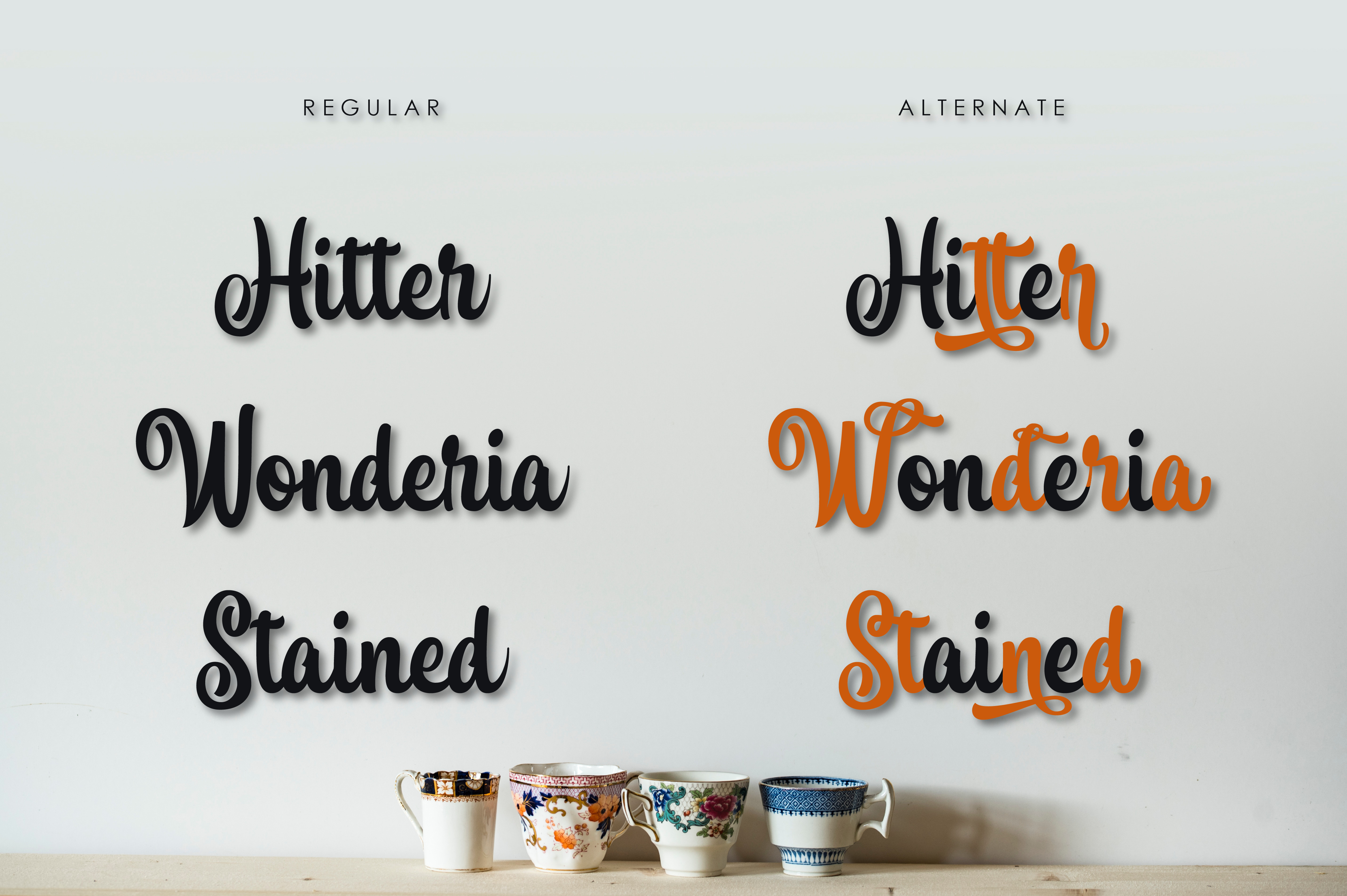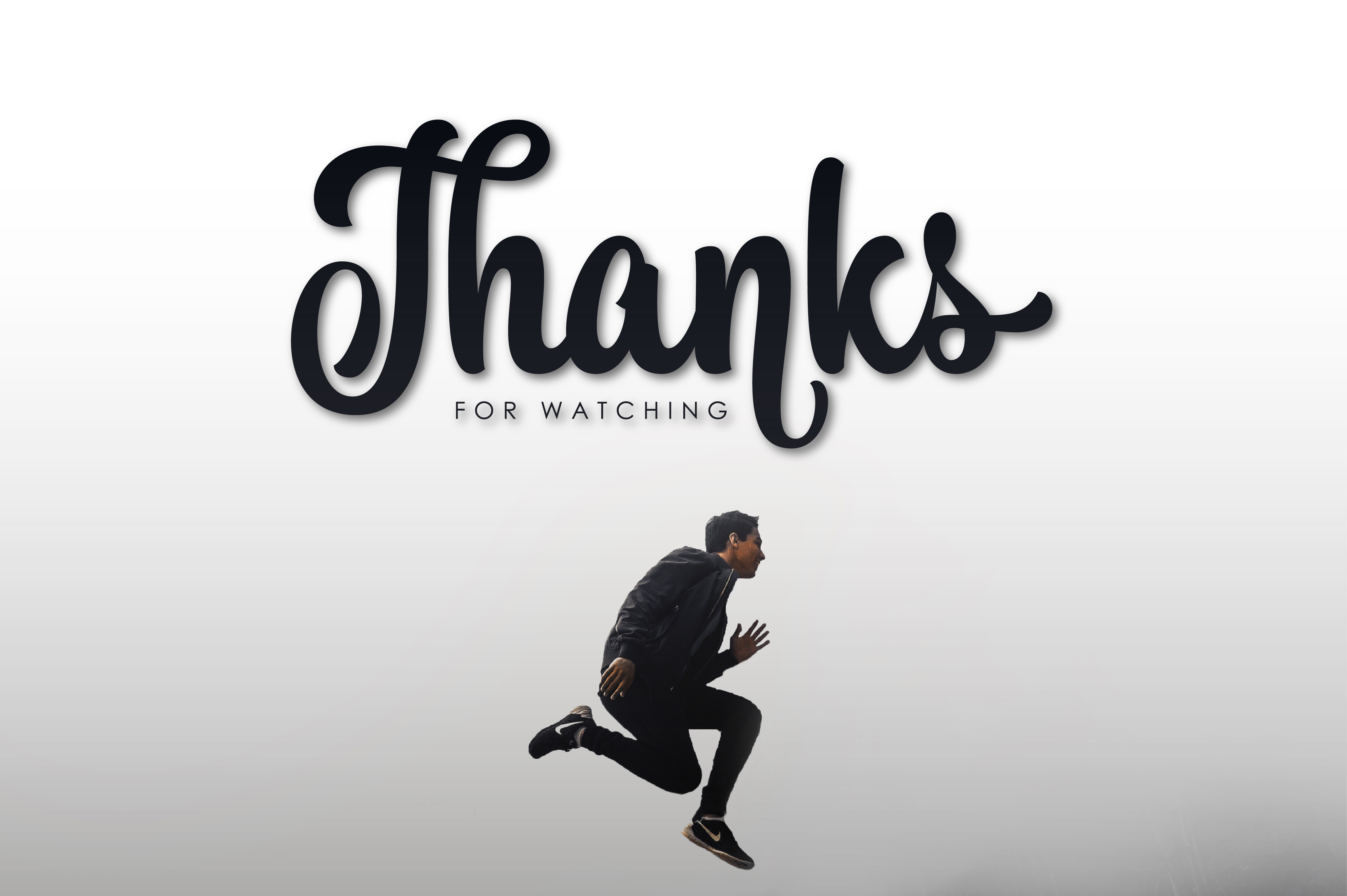
The Designer’s Dream: Arucard Script Font
I’ll never forget the time I was working on a project for a high-end fashion brand, and I just couldn’t seem to find the right font to match their sleek, sophisticated vibe. I scoured the internet, tried out countless fonts, but nothing seemed quite right. That was until I stumbled upon Arucard Script Font. ✨ It was like a breath of fresh air – elegant, modern, and full of personality. In this article, I’ll share my love for Arucard, its features, and how to make the most of it in your designs.
- ✨ Elegant and Modern: Arucard is a classy, modern script font that adds a touch of sophistication to any design.
- ✅ Versatile: With character alternates and a wide range of stylistic options, Arucard can be used for various design projects, from wedding invitations to fashion branding.
- 🔥 Visually Satisfying: The font’s unique features and beautiful lines make it a joy to work with and look at.
While Arucard is an amazing font, there are a few things to keep in mind: 🤔
- ⚠️ Legibility at Small Sizes: Like many script fonts, Arucard can be a bit tricky to read at very small sizes. It’s best used for display purposes or at larger sizes.
- ⚠️ Pairing with Other Fonts: Arucard is a bold font, so it can be challenging to pair with other fonts. Experiment with different combinations to find the perfect match.
A Practical Guide: Using Arucard in Your Designs
Arucard was designed with inspiration from classic calligraphy and modern typography. Its creator aimed to craft a font that would be both elegant and versatile, suitable for a wide range of design projects. While the actual design process is shrouded in mystery, it’s clear that Arucard is a labor of love, designed to bring beauty and sophistication to your designs.
| What makes Arucard unique? | Arucard’s unique features, such as character alternates and stylistic options, make it stand out from other script fonts. |
| Can I use Arucard for body text? | While Arucard is beautiful, it’s best suited for display purposes or large sizes. For body text, consider a more legible font. |